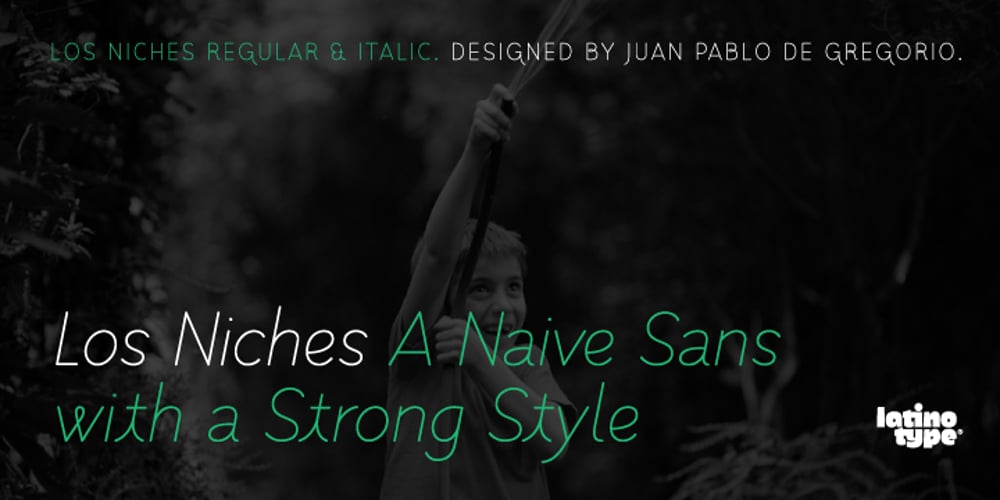
Los Niches Font Family was designed by Juan Pablo deGregorio and published by Latinotype. Los Niches contains 2 styles and family package options. Los Niches is a stylized sans serif typeface that combines modern, monoline characters with strokes and loops reminiscent of manuscript lettering. With a consistant, harmonious style Los Niches takes on a youthful flair when presented in bright colors, but is elegant and contemporary when dressed all in black. The flexible personality of Los Niches makes it ideal for catalogs, magazines or product packaging.